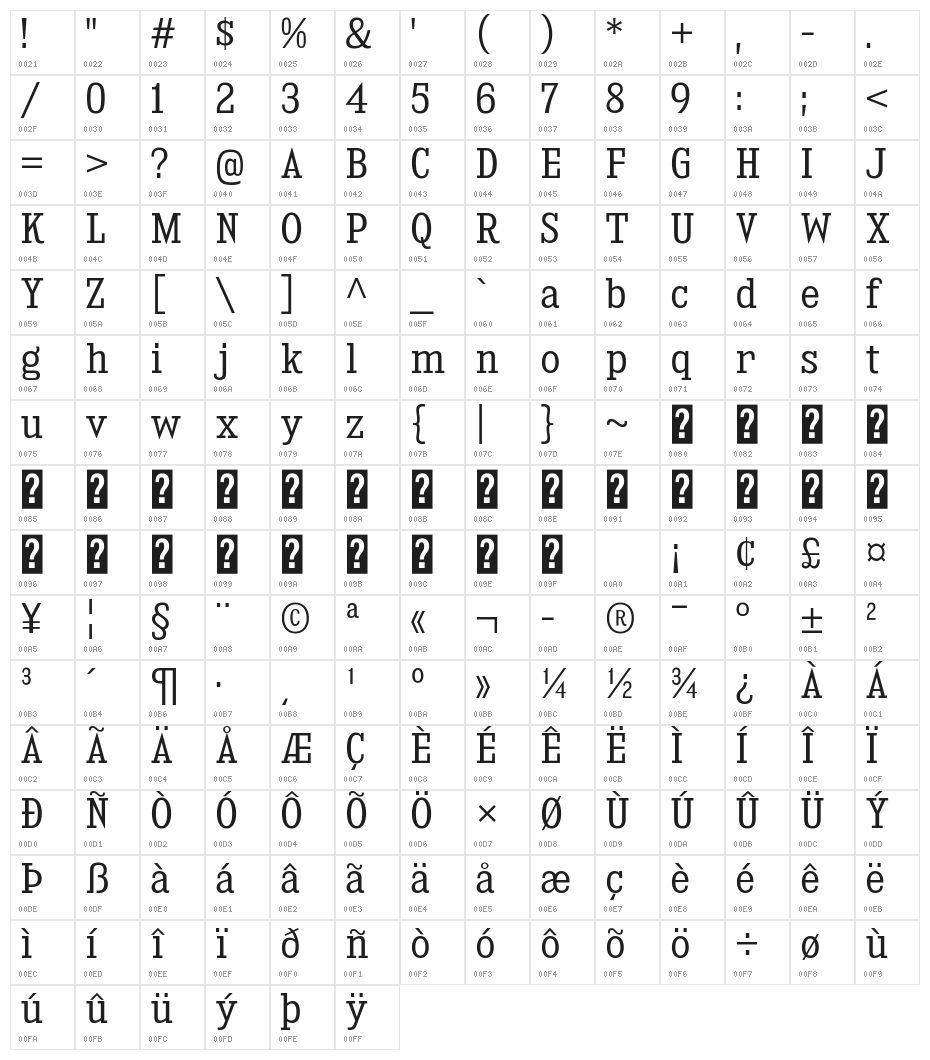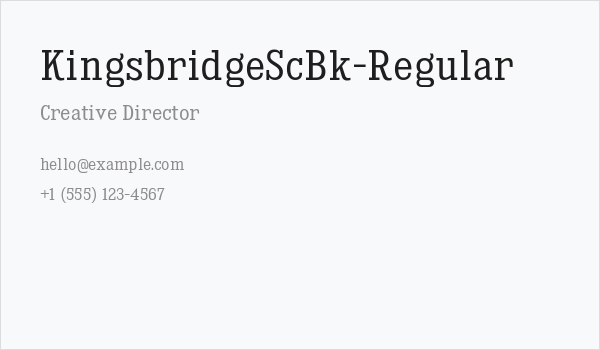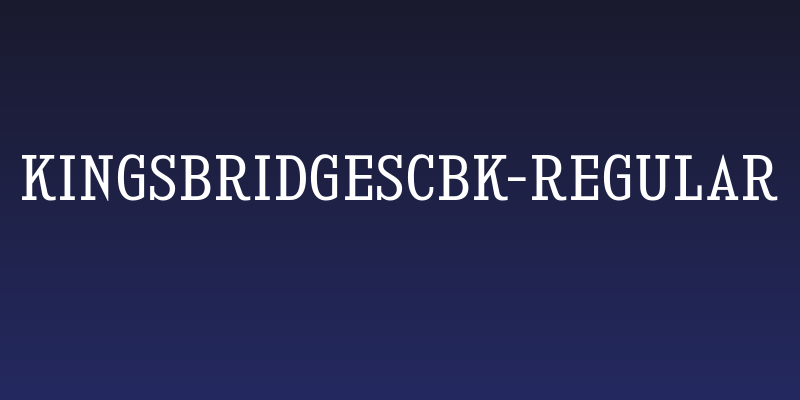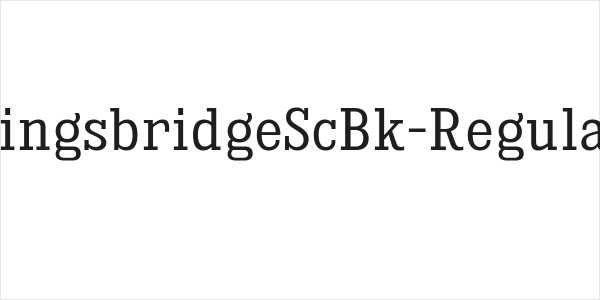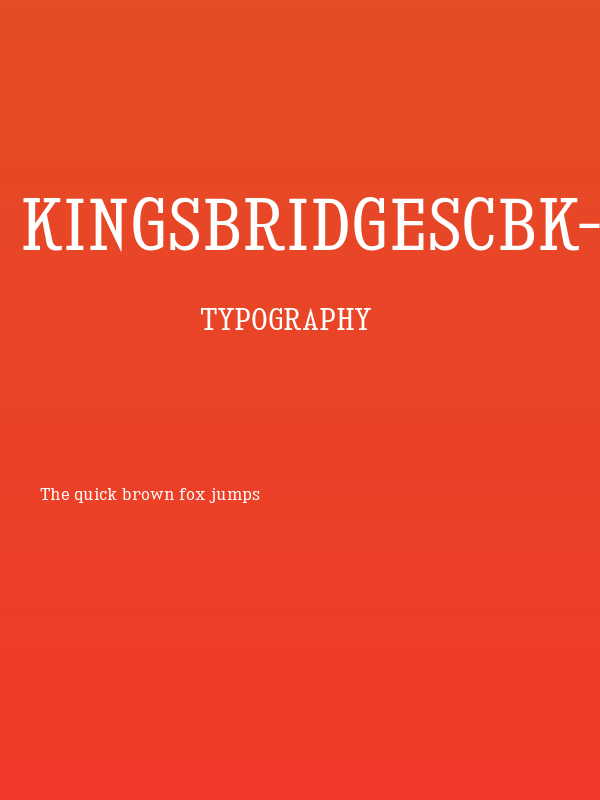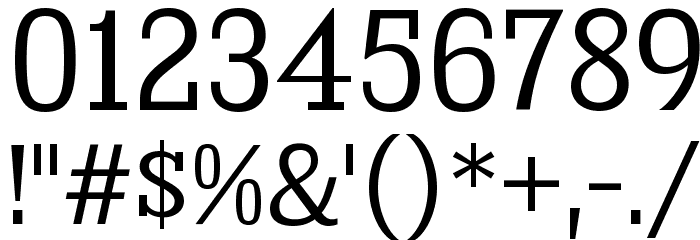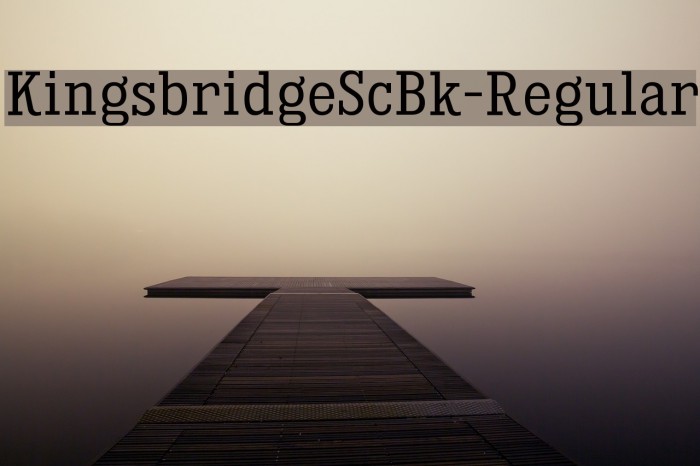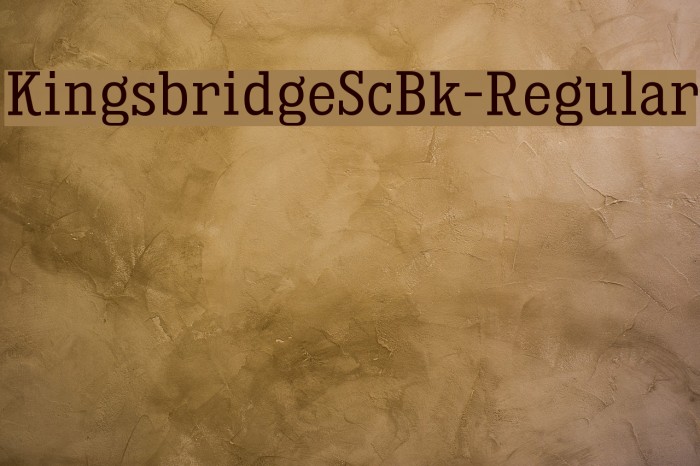
KingsbridgeScBk-Regular Font
KingsbridgeScBk-Regular Description
This font exhibits a classic serif style with a strong presence and a traditional aesthetic. The serifs are pronounced, giving the typeface a formal and authoritative look. The uppercase letters are tall and elegant, while the lowercase letters maintain a consistent and readable form. The numerals are clear and well-defined, making them suitable for both text and display purposes. The special characters are designed with the same attention to detail, ensuring a cohesive appearance across all glyphs. This font is versatile, suitable for a variety of applications where a touch of sophistication is desired.